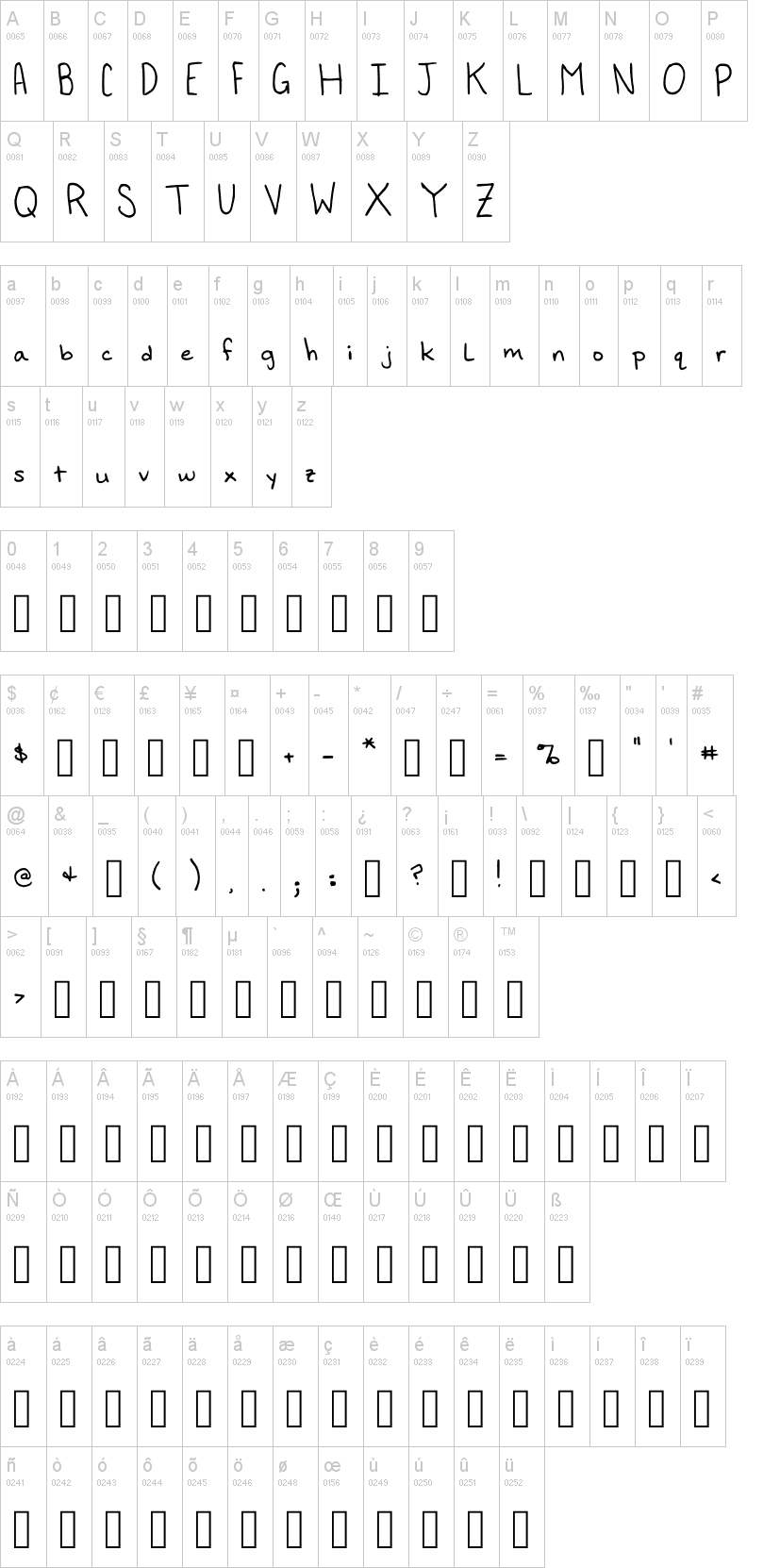
Note of the authorThis is my handwriting. Please feel free to use it if you like it. The only rule - do NOT use this for promoting hate speech of any kind.